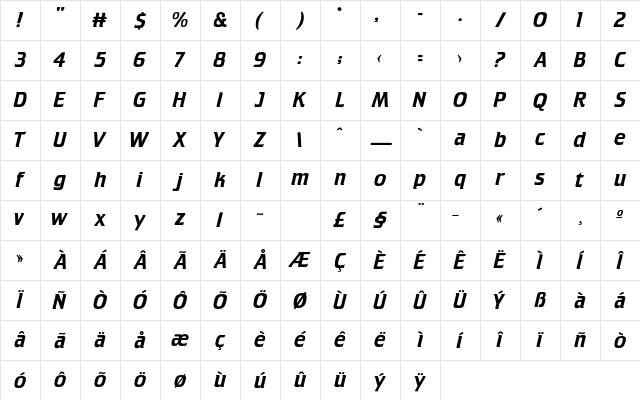
Complete Star TrekTNGCrille glyph index. Displaying only characters natively supported by Star TrekTNGCrille font.
Star is a composed and adaptable typeface that performs quietly and consistently across a wide range of design contexts.